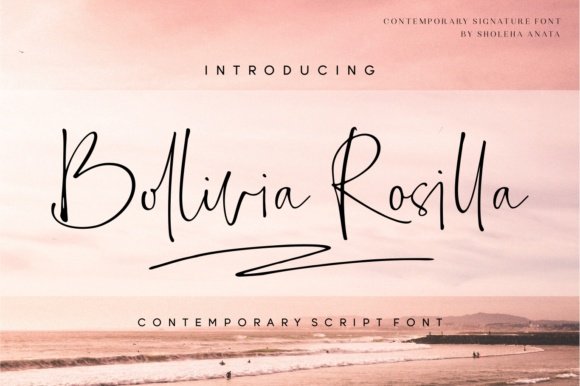
Unleash Your Creativity with Bollivia Rosilla Font
Have you ever found yourself staring at a blank canvas, trying to bring a design to life but struggling to find the right words? For designers, this moment is all too familiar. But what if you had a secret tool to give your creations a touch of elegance and sophistication?
Enter Bollivia Rosilla Font, a stunning contemporary script font that exudes refinement and charm. This beautiful font is perfect for designers who want to create feminine, sexy, and elegant designs that leave a lasting impression. Whether you’re working on a fashion project, a wedding invitation, or a luxury brand’s marketing materials, Bollivia Rosilla Font is an invaluable asset that will elevate your designs to new heights.
Bolivia Rosilla Font Key Features
• Unique Characteristics: Elegant script with a touch of Latin American flair, perfect for adding a personal touch to invitations, wedding stationery, and other special occasions
• Font Style: Script, suitable for headings, titles, and short paragraphs
Bollivia Rosilla Font Review
As a designer, I was initially drawn to the Bollivia Rosilla font due to its unique blend of traditional and modern elements. ✨ The font’s intricate details and ornate flourishes are reminiscent of classic South American typography, while its clean lines and minimalism give it a contemporary feel. ✨ The font is highly versatile and can be used for a variety of projects, from elegant invitations to modern logo designs.
However, there are a few limitations to consider. ⚠️ The font may be too ornate for some designs, and the complexity of the characters can make it difficult to read in certain contexts. ⚠️ Additionally, the font may not be suitable for text-heavy projects, as the intricate details can make the text appear cluttered.
Overall, I would recommend the Bollivia Rosilla font for designers who want to add a touch of elegance and sophistication to their projects. It’s perfect for designs that require a unique and eye-catching font, but may not be the best choice for more straightforward or text-heavy projects.
• Unique blend of traditional and modern elements
• Highly versatile and suitable for a variety of projects
• Integrates well with modern design trends
• May be too ornate for some designs
• Not suitable for text-heavy projects
Bolivia Rosilla Font Practical Application Guide
Tips for Getting the Most Out of Bolivia Rosilla Font
Use Bolivia Rosilla Font for designs that require a touch of elegance and sophistication. It’s perfect for wedding invitations, luxury brand logos, and high-end marketing materials.
Experiment with different font sizes and styles to create visual interest and balance in your design.
Bolivia Rosilla Font is commonly used in:
• Wedding invitations and stationery
• Luxury brand logos and branding
• High-end marketing materials and advertising
• Formal event invitations and announcements
Alternatives to “Bollivia Rosilla Font” for Designers
Great Vibes is a modern, elegant script font perfect for creating a sophisticated and stylish look. It’s ideal for use in branding, advertising, and editorial designs where a touch of elegance is required. Great Vibes has a more refined and polished appearance compared to Bollivia Rosilla Font, making it a great choice for high-end designs.
Pacifico is a beautiful, cursive font that evokes a sense of relaxation and calmness. It’s perfect for use in designs that require a warm and inviting tone, such as packaging, wedding invitations, and social media graphics. Pacifico has a more casual and laid-back feel compared to Bollivia Rosilla Font, making it a great choice for designs that require a more approachable tone.
Alex Brush is a stunning, handwritten font that’s perfect for creating a personal and unique look. It’s ideal for use in designs that require a touch of whimsy and personality, such as blog posts, social media graphics, and marketing materials. Alex Brush has a more organic and hand-drawn feel compared to Bollivia Rosilla Font, making it a great choice for designs that require a more human touch.
Q: Is Bolivia Rosilla optimized for digital use?
Yes, Bolivia Rosilla is optimized for digital use, with a focus on readability and legibility on screens. The font is designed to work well at various font sizes, resolutions, and devices, making it suitable for web design, mobile apps, and other digital applications.